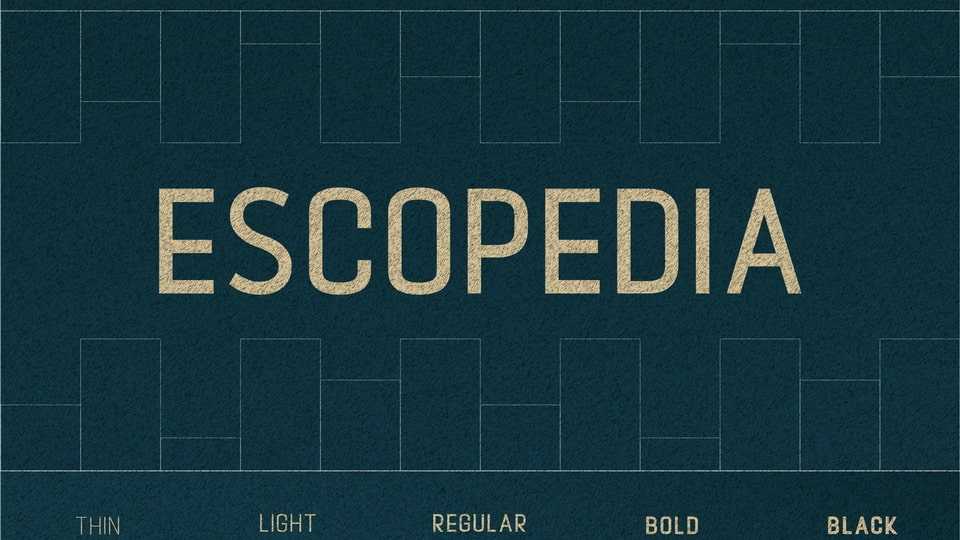
Escopedia Font Family › Fontesk
Download Escopedia font, a condensed sans serif typeface crafted with unwavering attention to detail. Its diversity empowers you to seamlessly adapt your designs to varying contexts, from striking logos to captivating book covers.